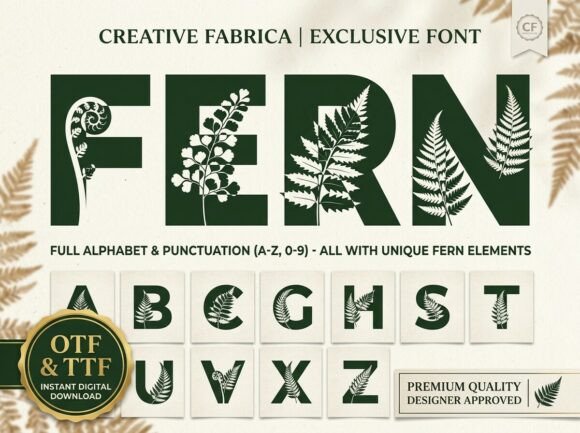
Fern Font: Elevate Your Designs with a Stunning Decorative Display Font
Are you tired of using the same old fonts in your designs? Do you want to make a statement and grab the attention of your audience? Look no further than Fern Font, a breathtaking decorative display font that’s sure to take your creations to the next level. With its unique artistic elements and strong visual personality, this font is perfect for designers, crafters, and entrepreneurs who want to break away from the ordinary and make a lasting impression.
A Font that’s Truly One-of-a-Kind
Fern Font is a masterpiece of typographic design, featuring intricate details and a distinctive style that’s sure to turn heads. This font is not just a collection of letters – it’s an artistic statement that’s designed to be the center of attention. Whether you’re creating bold headlines, artistic logos, or creative packaging, Fern Font is the perfect choice for anyone who wants to add a touch of elegance and sophistication to their designs.
One of the best things about Fern Font is its versatility. This font is not just limited to one or two specific uses – it’s incredibly flexible and can be used in a wide range of design applications. From bold headlines and titles to artistic logos and decorative initials, Fern Font is the perfect choice for any project that requires a touch of glamour and sophistication.
⚠️ IMPORTANT NOTE BEFORE PURCHASE: Fern Font is an ALL-CAPS (Uppercase Only) display typeface. This means that it does not include lowercase letters. It’s specifically designed for high-impact headlines, logos, and decorative initials where every letter is a work of art. If you’re looking for a font that includes both uppercase and lowercase letters, Fern Font may not be the best choice for you.
Why Choose Fern Font?
So why should you choose Fern Font for your next design project? Here are just a few reasons:
- Unique and eye-catching: Fern Font is a truly one-of-a-kind font that’s sure to grab the attention of your audience.
- Versatile: This font can be used in a wide range of design applications, from bold headlines to artistic logos and creative packaging.
- Professional and polished: Despite its decorative nature, Fern Font maintains a professional and polished finish that’s perfect for businesses and brands.
How to Use Fern Font
- Experiment with different sizes: Fern Font looks great in large sizes, but it can also be used for smaller titles and headings.
- Play with color: This font looks great in bold, bright colors, but it can also be used with more muted tones and textures.
- Combine with other fonts: Fern Font can be paired with other fonts to create a unique and eye-catching typographic combination.
Fern Font is a stunning decorative display font that’s perfect for designers, crafters, and entrepreneurs who want to add a touch of elegance and sophistication to their designs. With its unique artistic elements, strong visual personality, and versatility, this font is sure to take your creations to the next level. So why wait? Download Fern Font today and start creating stunning designs that will leave a lasting impression on your audience!